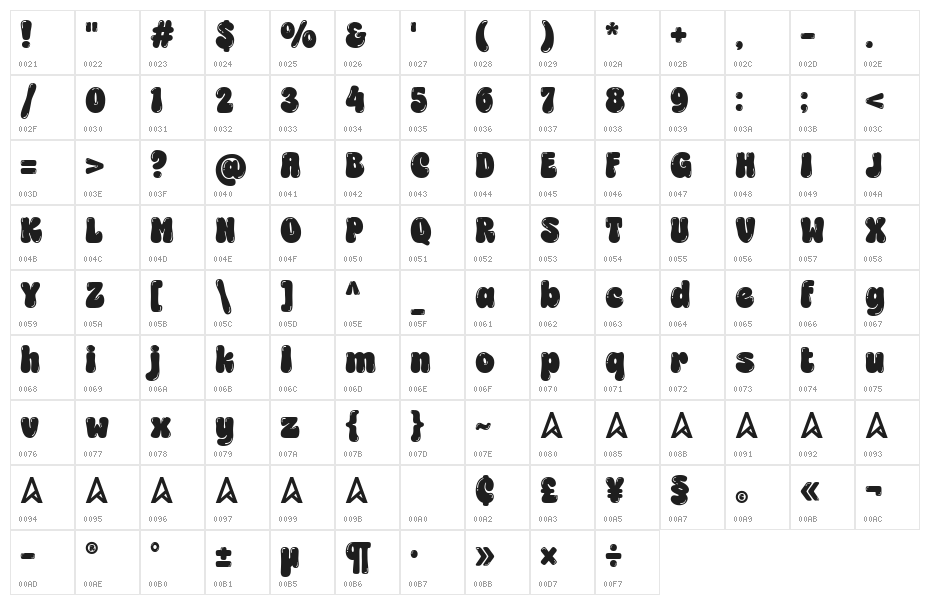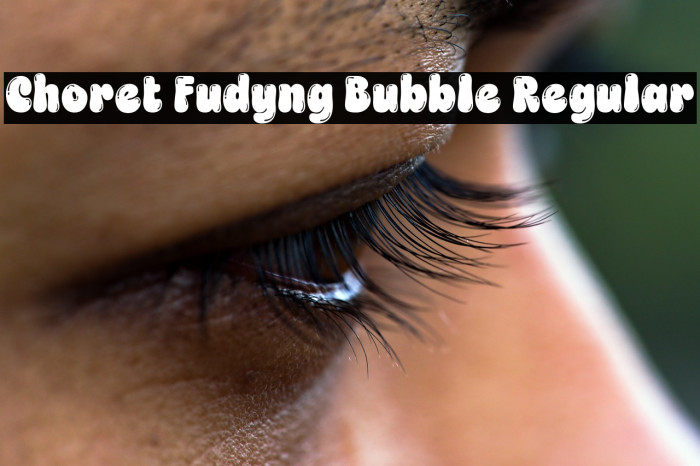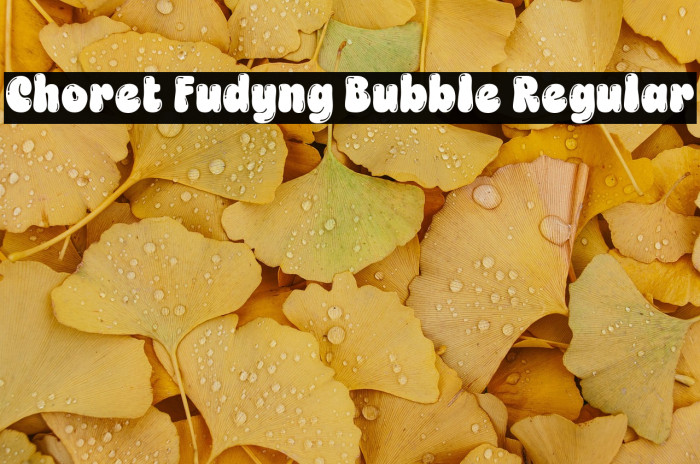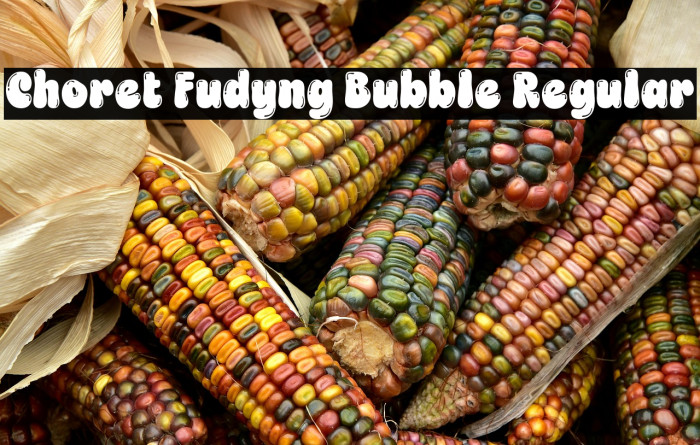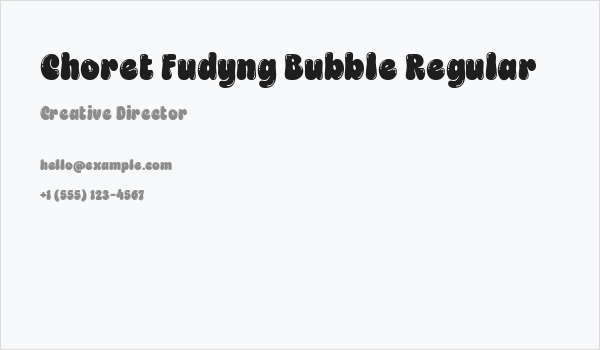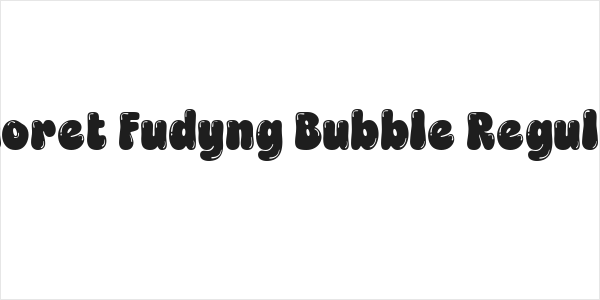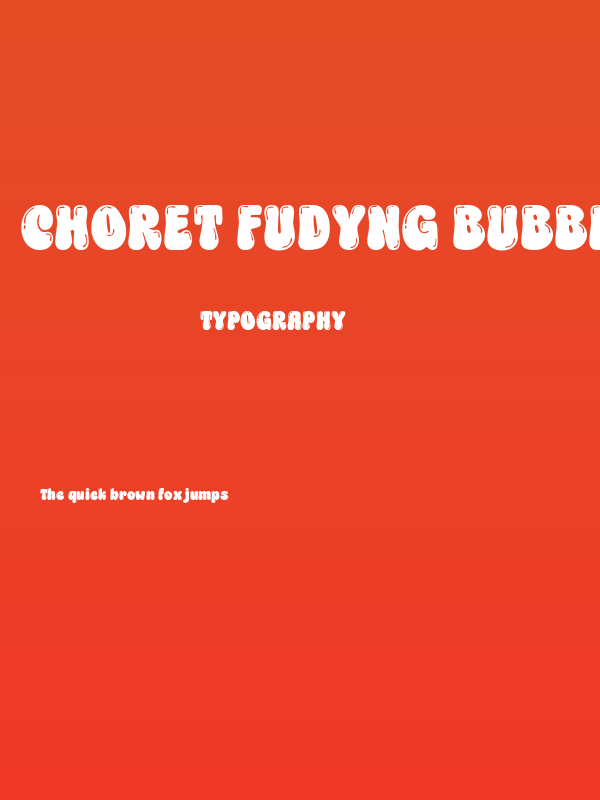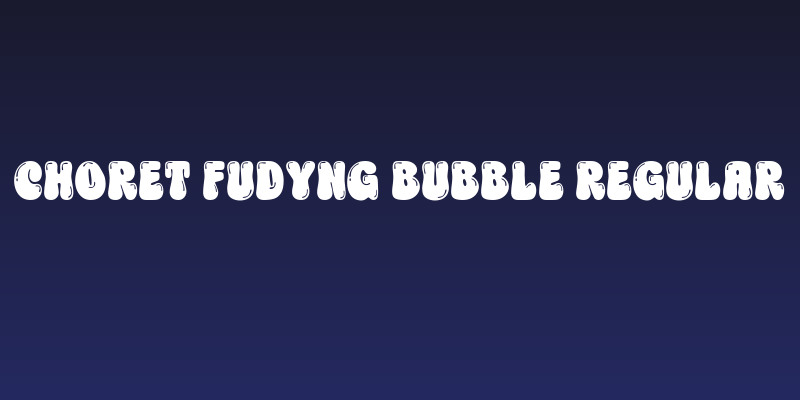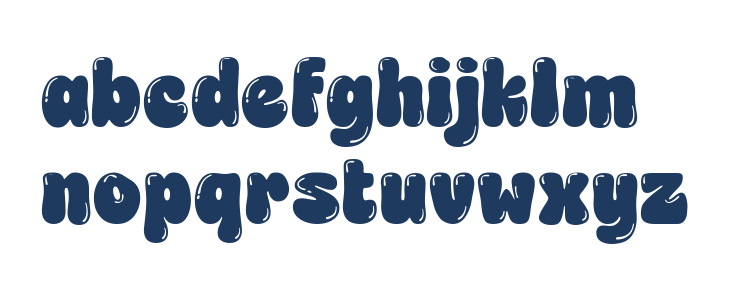
Choret Fudyng Bubble Regular Font
Choret Fudyng Bubble Regular Description
This playful and bold typeface features a bubbly, rounded design that exudes a sense of fun and whimsy. The characters are thick and substantial, with a smooth, glossy appearance that resembles inflated balloons or bubbles. The font's unique style makes it stand out, with each letter maintaining a consistent weight and form, contributing to its cohesive and harmonious look. The rounded edges and soft curves add a friendly and approachable feel, making it ideal for projects that aim to convey joy and creativity. The font includes a full set of uppercase and lowercase letters, numbers, and a variety of special characters, ensuring versatility in its application.
| Overall Style | Playful, Whimsical, Fun |
| Use Case | Headlines, Logos, Posters, Invitations |
| Proposed Projects | Ideal for children's books, party invitations, playful branding, and any project seeking a fun and whimsical touch. |